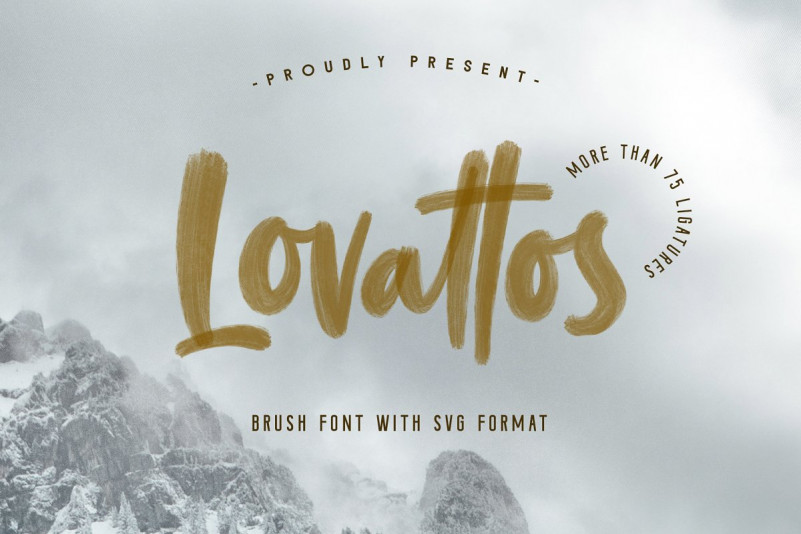
Lovattos Font
Introducing Lovattos our latest signature font SVG.. Made with Brush element that make this font so Messy but have classy touch. Lovattos also comes with Ligatures and Stylistic Alternates that will make the signature font more real.Lovattos is very best choice fonts for : Wedding Invitation, branding, web content, quotes, Posters, Logos, Print Ads, Digital Ads, Promotion Product etc